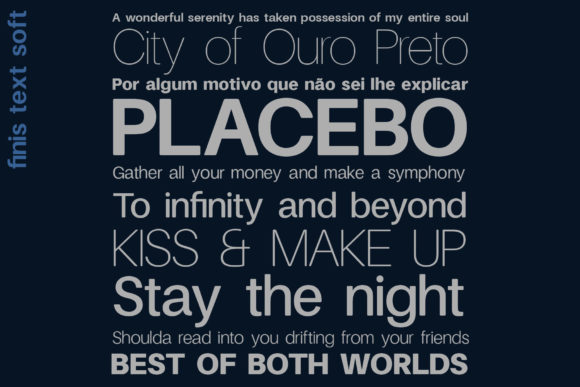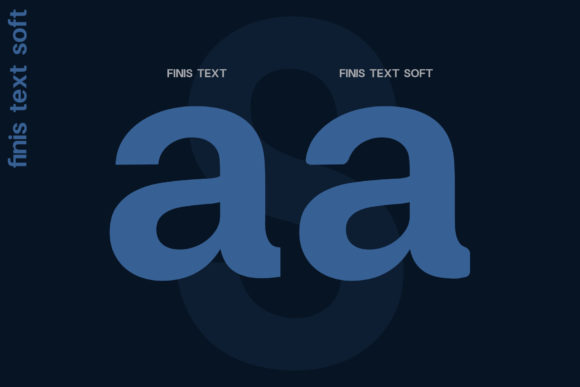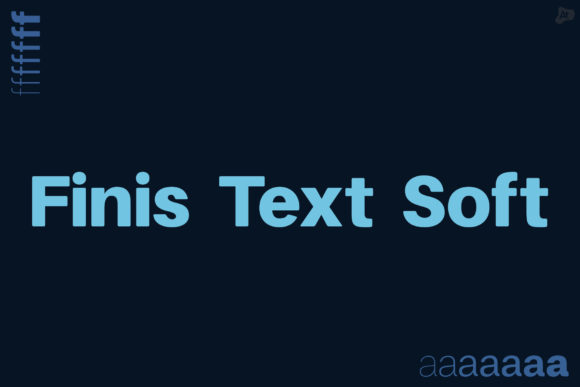
Finis Text Soft Font
About Finis Text Soft Font
Finis Text Soft is a geometric, contemporary, soft-edged sans-serif type family that focuses on clarity and legibility. Inspired by the Bauhaus movement, it was designed for headlines or texts, displaying simple and effective glyph design. Its versatile design options are perfect for headlines, logos and branding, displays, invitations, posters, packaging, blog headers, recipe cards, postcards and so much more.